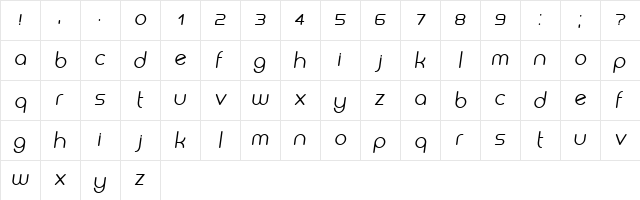
Biysk Italic
Design Context for Biysk Typeface
Biysk takes a measured approach to typography — its balanced proportions and neutral character make it a reliable workhorse for both digital and print work. Its italic angle brings a sense of urgency and motion to the letterforms.